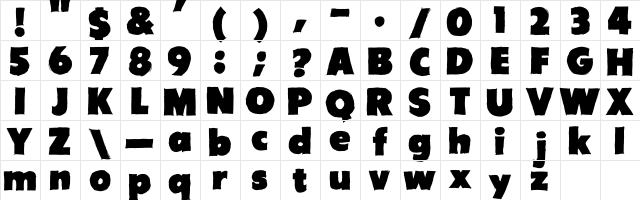
Are You Jimmy Carl Black Regular
Design Context for Are You Jimmy Carl Black Typeface
Are You Jimmy Carl Black takes a measured approach to typography — its balanced proportions and neutral character make it a reliable workhorse for both digital and print work.